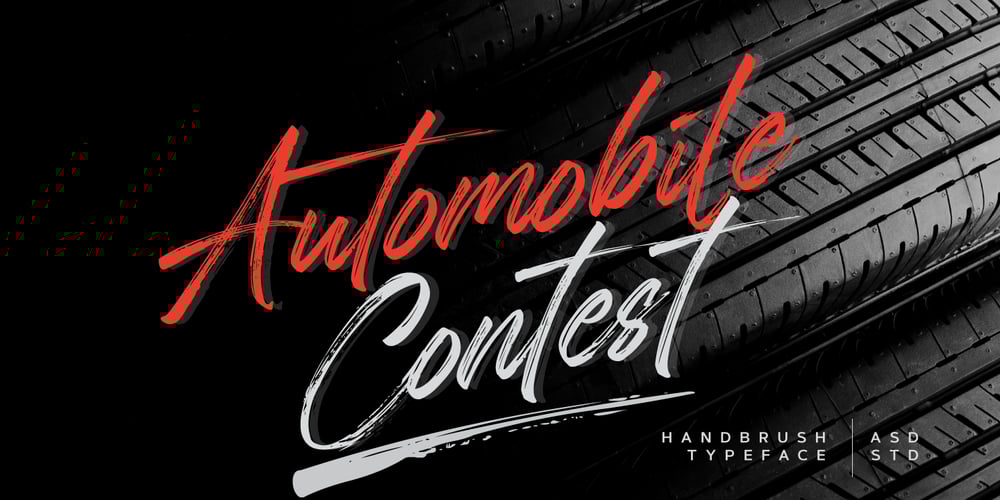
Automobile Contest
Automobile Contest font
Automobile Contest Font Family was designed by Ghazi and published by Asd Studio. Automobile Contest contains 1 styles and family package options. Introducing the new font Automobile Contest – Handbrush, the new version of Qillsey Einstein Font, a type of script that has a natural scratch texture. I made by using a brush pen that makes the impression seem natural. My font is complete with two StylisticSet which will make the writing more beautiful and charming. This typeface is suitable for use in a variety of design fields, such as event advertisements, product promotions, book titles, activity titles, logos, adventure, and others. This font can when paired with serif font types will make your design project more beautiful and perfect. I highly recommend using a program that supports OpenType featuresand Glyphs panels such as Adobe Illustrator, Adobe Photoshop CC, Adobe InDesign, or CorelDraw, so you can see and access all Glyph variations. This font is encoded with Unicode PUA, which allows full access toall additional characters without having special design software. Mac users can use Font Book, and Windows users can use Character Map to view and copy one of the extra characters to paste into your favorite text editor / application. I hope you enjoy the font, thank you.